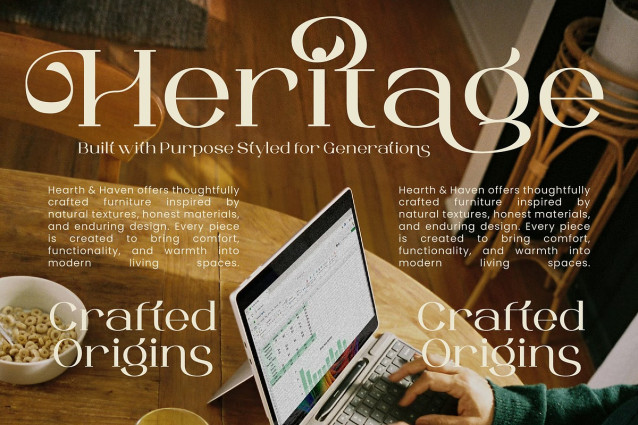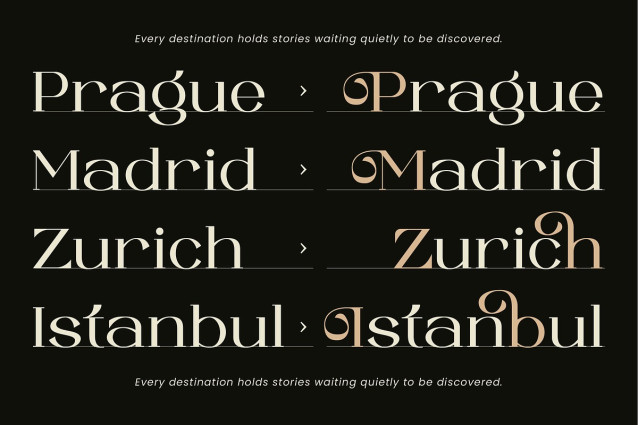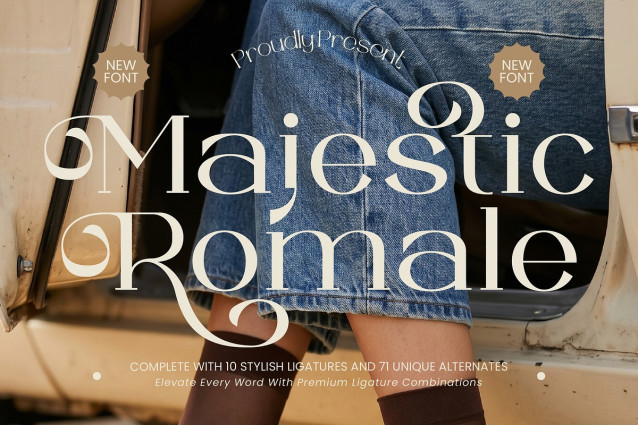
Majestic Romale Font
Majestic Romale Font a luxurious and sophisticated serif font designed to bring a touch of timeless elegance to your creative projects. With its high-contrast strokes and gracefully curved terminals, this font is the perfect choice for designers looking to create high-end branding, editorial layouts, and impactful headlines.
Majestic Romale is more than just a typeface; it’s a versatile design tool. It comes packed with 10 stylish ligatures and 71 unique alternates, allowing you to create custom-looking typography with just a few clicks. Whether you’re designing a fashion magazine, a premium wine label, or a minimalist wedding invitation, this font adapts beautifully to your vision.